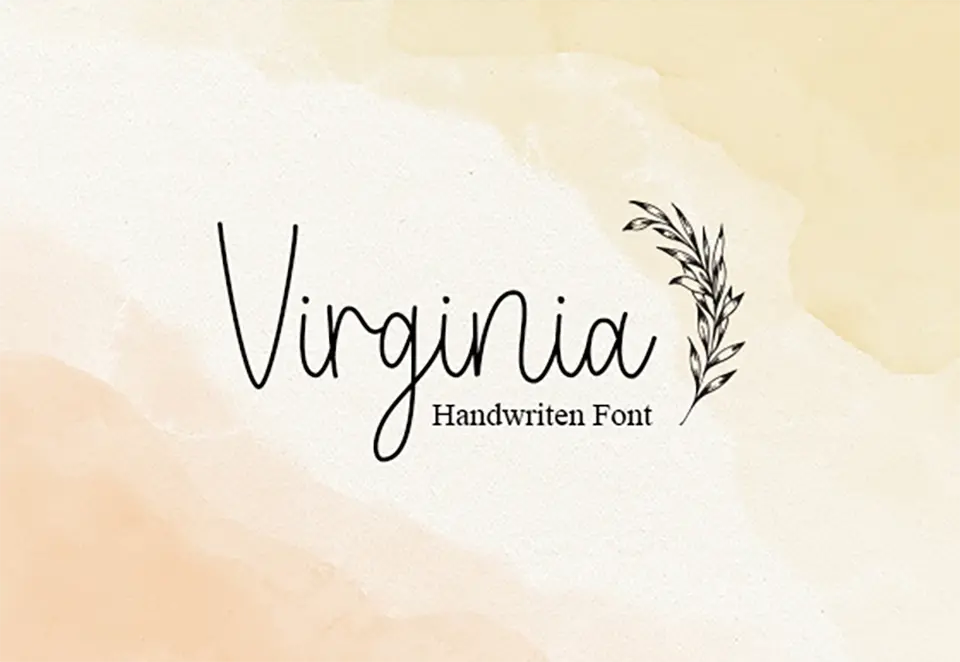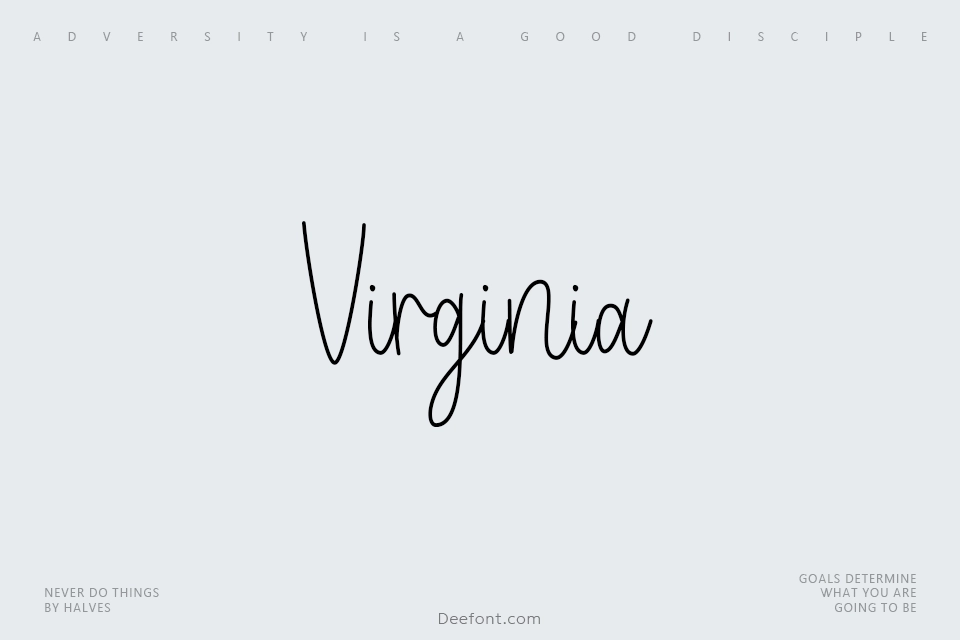
Virginia Font
Virginia is an elegant light handwritten script font created with meticulous care by designer Angga Adiput. This calligraphic typeface features subtle, clean lines and dainty letterforms that convey sophisticated elegance and refined style. With its multiple baselines and carefully crafted glyphs, Virginia excels in creative applications including logos, invitations, wedding cards, branding materials, and decorative typography. The font encompasses 164 glyphs including partial accent support, making it versatile for varied design needs. Perfect for designers seeking graceful, feminine handwriting aesthetics that maintain professional appeal and contemporary charm in their creative projects.